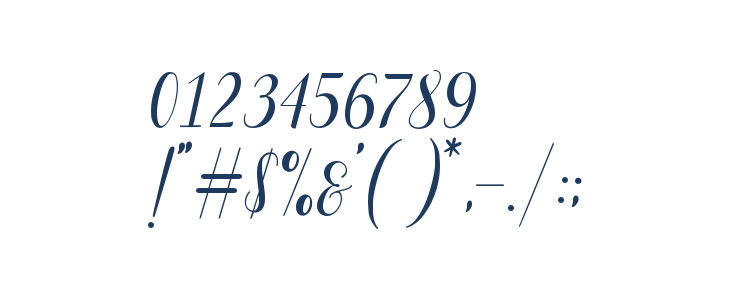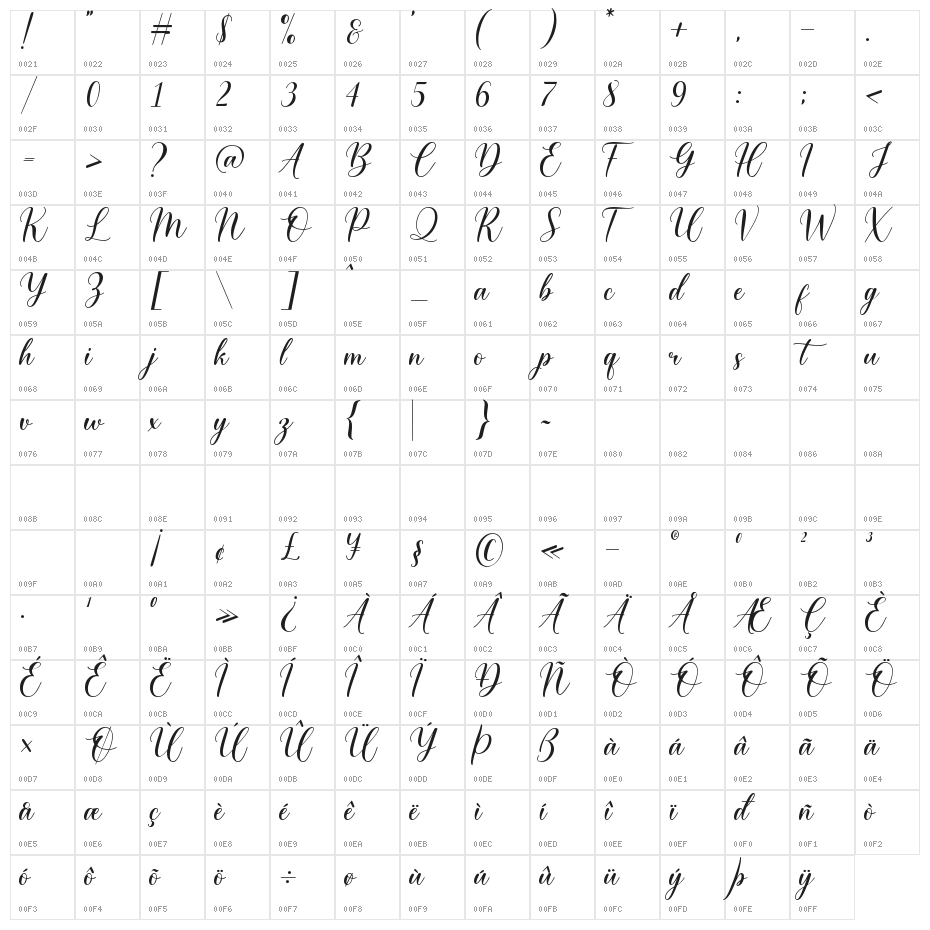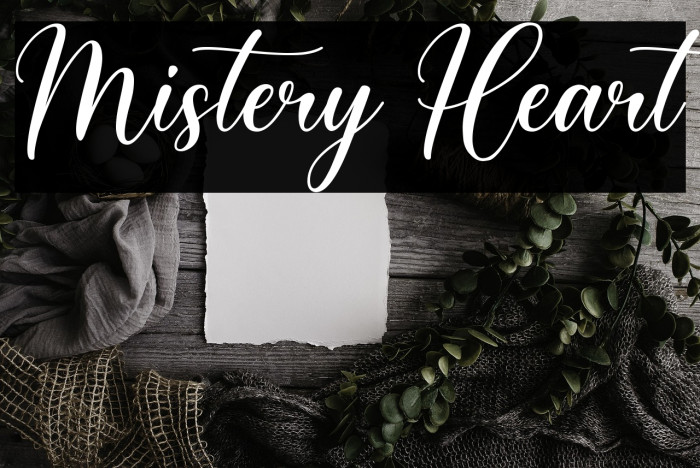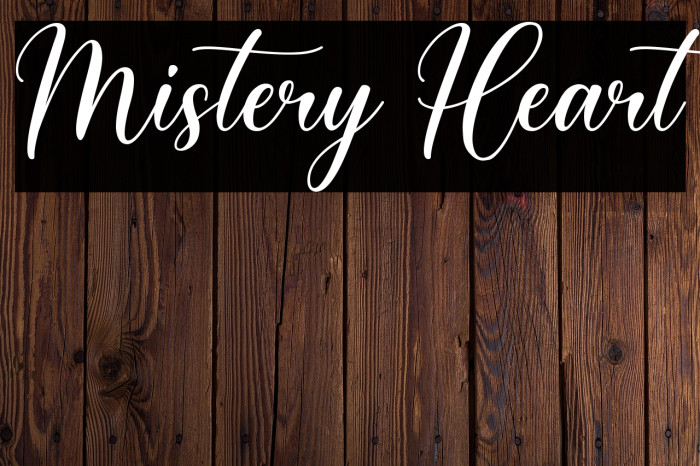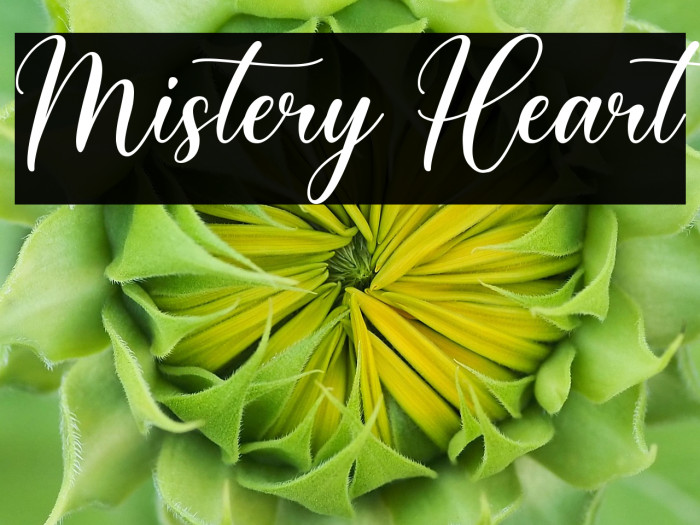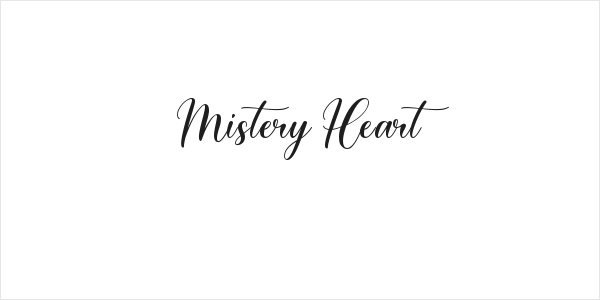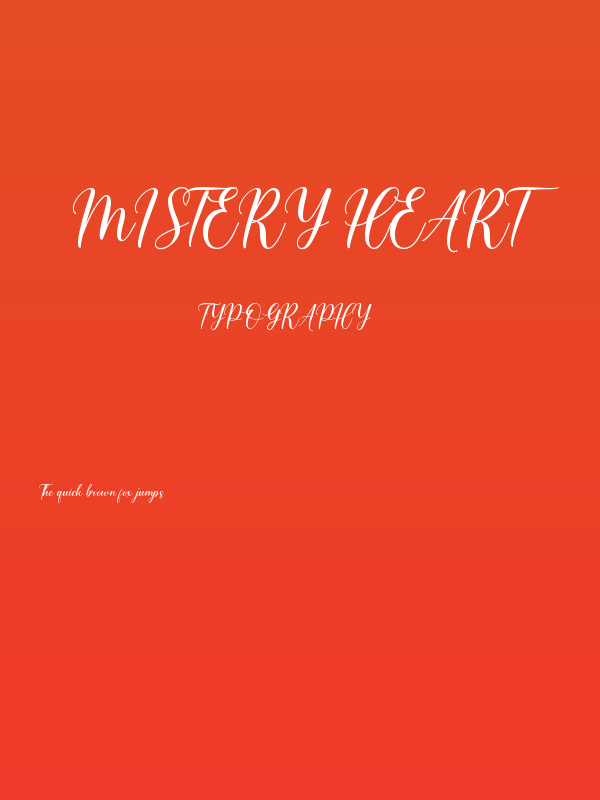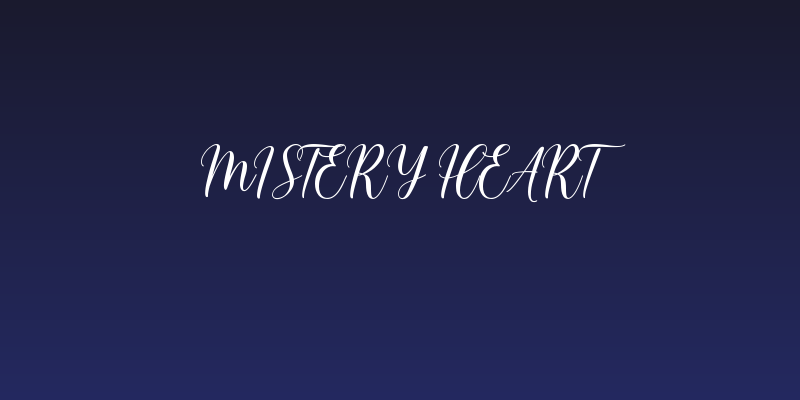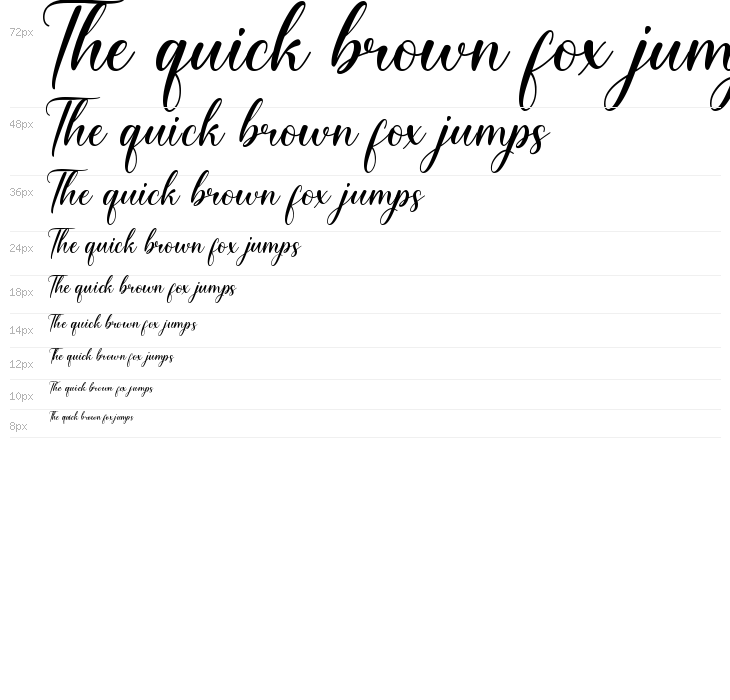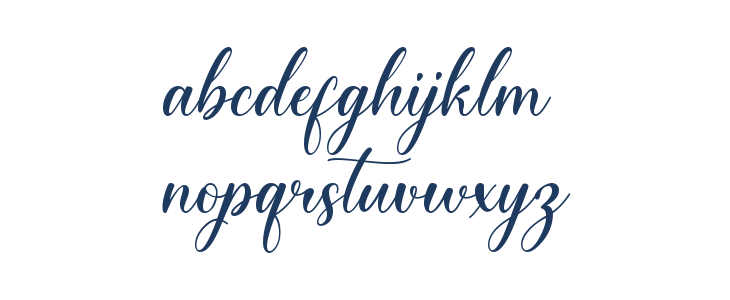
Mistery Heart Font
Mistery Heart Description
This elegant script font features flowing, cursive letters with a sophisticated and romantic style. The uppercase letters are characterized by their sweeping curves and loops, giving a sense of movement and grace. The lowercase letters maintain a consistent flow, with delicate connections between each character. The numerals are stylish and maintain the script's fluidity, while the special characters complement the overall aesthetic. This font is perfect for adding a touch of elegance and charm to any design project.
| Overall Style | Elegant, Romantic |
| Use Case | Headlines, Invitations, Logos |
| Proposed Projects | Ideal for wedding invitations, greeting cards, branding, and elegant logo designs. |